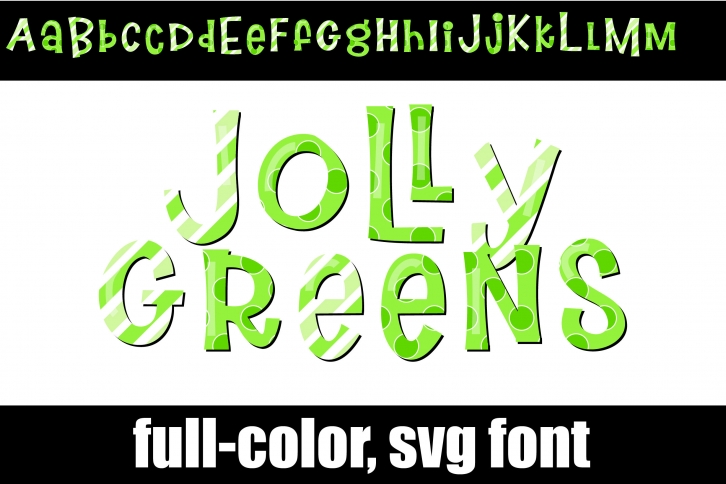
This full-color font features whimsical lettering in a green color palette. There are some fun ligatures like the double l’s to keep it creative. A second upper and lower alt case you can access through your system’s character map.